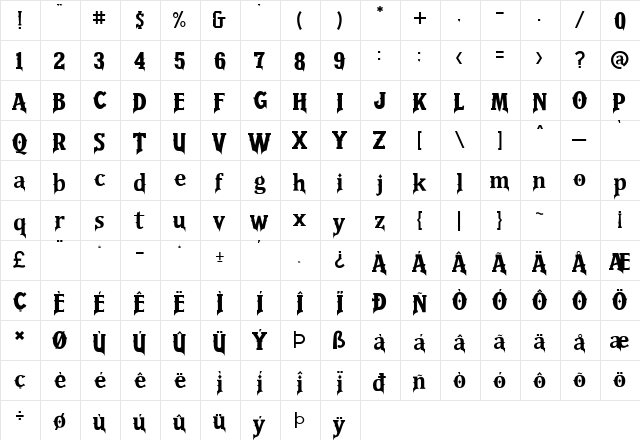
Quinthero Regular
Design Context for Quinthero Typeface
Quinthero is a composed and adaptable typeface that performs quietly and consistently across a wide range of design contexts.
Pro Tip: Use Quinthero in both headline and body roles to test its range before committing to a single application.